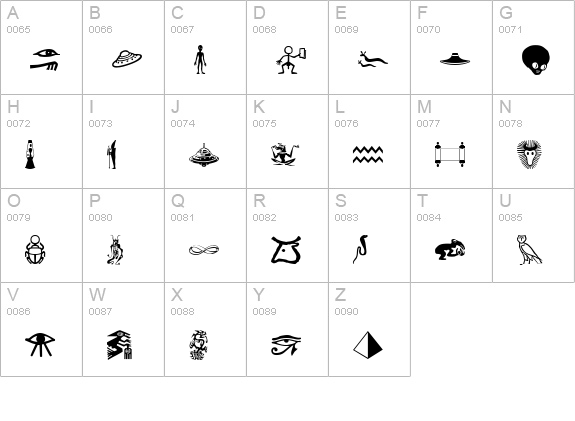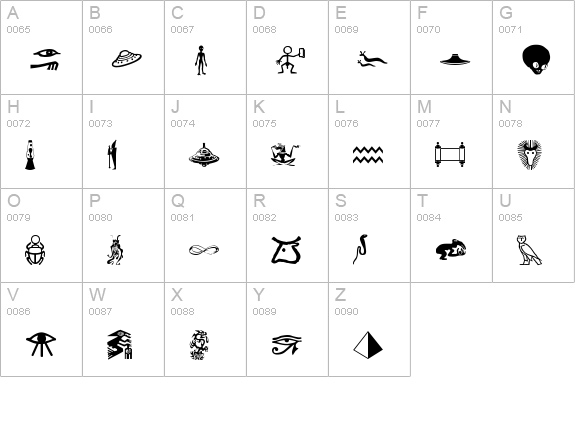
IsisDings Font Details
IsisDings is a stunning and versatile font that will add a touch of elegance and creativity to any design project. With its intricate details and unique characters, this font is perfect for adding decorative elements and embellishments to your work. Whether you're designing invitations, logos, or posters, IsisDings will effortlessly enhance your designs and make them stand out. One of the best things about IsisDings is that it is free! That's right, you can download this amazing font for absolutely no cost at FontsMarket.com. This means that you can use it in your personal and commercial projects without any restrictions. With its extensive character set, including symbols, icons, and decorative elements, IsisDings offers endless possibilities for your designs. The beauty of IsisDings lies in its ability to bring creativity and flair to any project. Its delicate lines and intricate details make it a truly unique font that will capture the attention of your audience. Whether you're creating a wedding invitation or a branding project, IsisDings will add a touch of sophistication and charm. Not only is IsisDings visually appealing, but it is also incredibly easy to use. With its smooth curves and well-designed characters, this font is a pleasure to work with. It is compatible with various design software and can be easily installed on both Mac and PC platforms. So why wait? Visit FontsMarket.com today and download IsisDings for free. Experience the beauty and versatility of this font and take your designs to the next level. With IsisDings, your creativity knows no bounds.